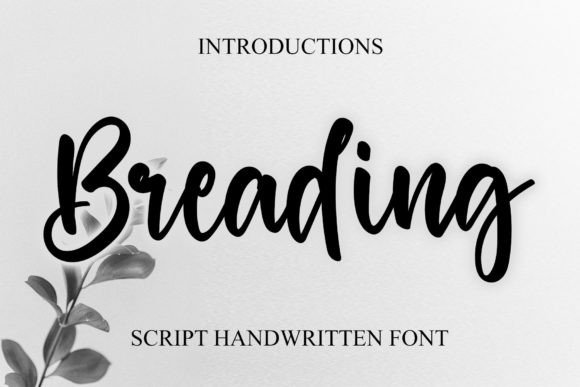
Breading Font: Elevate Your Designs with Timeless Elegance
In the world of typography, a well-crafted font can make all the difference in elevating your designs to the next level. For designers and crafters seeking a stylish and sophisticated touch, Breading Font is an exceptional choice. This stunning handwritten font boasts a contemporary atmosphere and impeccable form, drawing inspiration from timeless classic calligraphy.
The Beauty of Breading Font
Breading Font is a masterfully designed typeface that exudes elegance and poise. Its balanced and varied characters make it an ideal choice for a wide range of projects, from branding and advertising to packaging and digital media. With its roots in traditional calligraphy, Breading Font brings a sense of sophistication and refinement to any design.
Key Features of Breading Font
- Handwritten with a personal touch: Breading Font’s unique, handwritten style gives it a distinct personality that sets it apart from more traditional fonts.
- Contemporary atmosphere: Despite its classic inspiration, Breading Font has a modern feel that makes it perfect for designs that require a fresh, updated look.
- Impeccable form: The font’s precise and clean lines ensure that it remains legible and visually appealing, even at smaller sizes.
- Balanced and varied: Breading Font’s characters are carefully crafted to provide a sense of balance and harmony, making it easy to use in a variety of contexts.
Why Choose Breading Font?
For designers and crafters seeking a font that can add a touch of sophistication and elegance to their work, Breading Font is an excellent choice. Its versatility and timeless appeal make it suitable for a wide range of projects, including:
- Branding and logos: Breading Font’s unique style makes it an excellent choice for creating memorable and distinctive brand identities.
- Advertising and marketing materials: The font’s elegant and refined appearance makes it perfect for use in print and digital ads, brochures, and other marketing materials.
- Packaging and product design: Breading Font’s classic inspiration and modern feel make it an excellent choice for packaging and product design, adding a touch of sophistication to any product.
- Digital media and web design: The font’s legibility and clean lines make it suitable for use in digital media, including websites, social media graphics, and more.
Tips for Using Breading Font
To get the most out of Breading Font, consider the following tips:
- Use it sparingly: Breading Font’s unique style makes it a great choice for headlines, titles, and other prominent text elements. Use it sparingly to create visual interest and emphasize key messages.
- Pair it with complementary fonts: Breading Font pairs well with a variety of fonts, including sans-serif and serif fonts. Experiment with different combinations to find the perfect match for your project.
- Experiment with colors and textures: Breading Font’s elegant appearance makes it a great choice for use with a range of colors and textures. Experiment with different options to find the perfect fit for your design.
Breading Font is a stunning handwritten font that offers a unique blend of classic inspiration and modern appeal. Its elegant and refined appearance makes it an excellent choice for designers and crafters seeking to add a touch of sophistication to their work. With its versatility, legibility, and timeless appeal, Breading Font is sure to become a valuable addition to any designer’s toolkit.